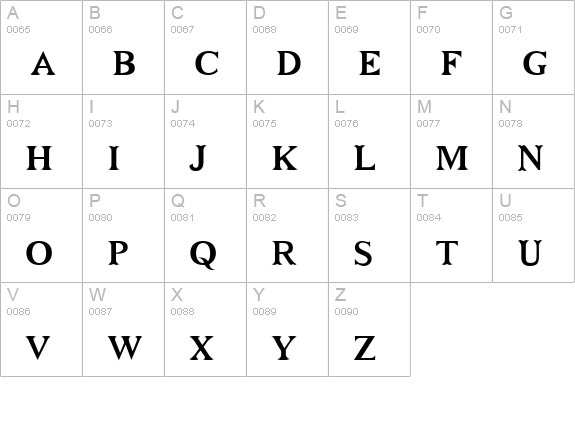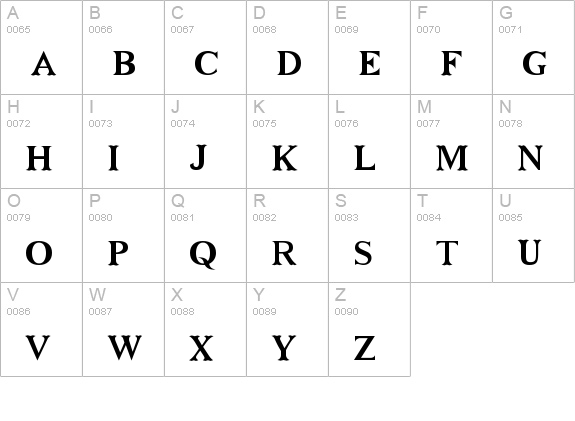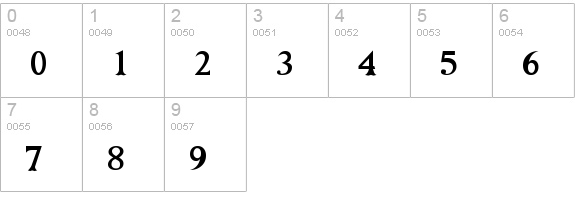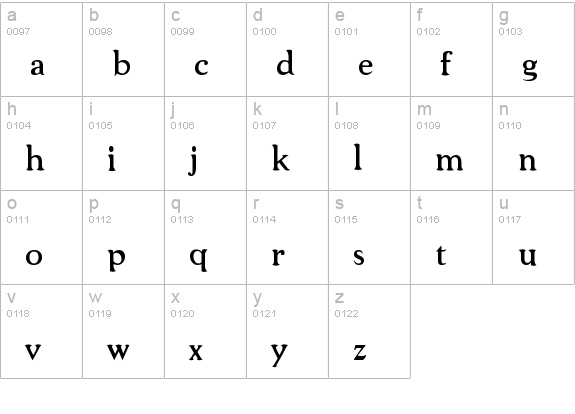
Niew CroMagnon Font Details
Niew CroMagnon font is a modern and sleek typeface that exudes elegance and sophistication. With its clean lines and bold strokes, this font is perfect for a wide range of design projects, from branding to editorial design. The Niew CroMagnon font strikes the perfect balance between classic and contemporary, making it a versatile choice for any designer looking to make a statement. What sets Niew CroMagnon font apart is not only its striking aesthetic appeal but also its accessibility - it is free to download at FontsMarket.com. This means that you can add this beautiful font to your collection without breaking the bank. Whether you're a seasoned designer or just starting out, Niew CroMagnon font is a valuable addition to your toolkit. Download it today and elevate your design projects to the next level.